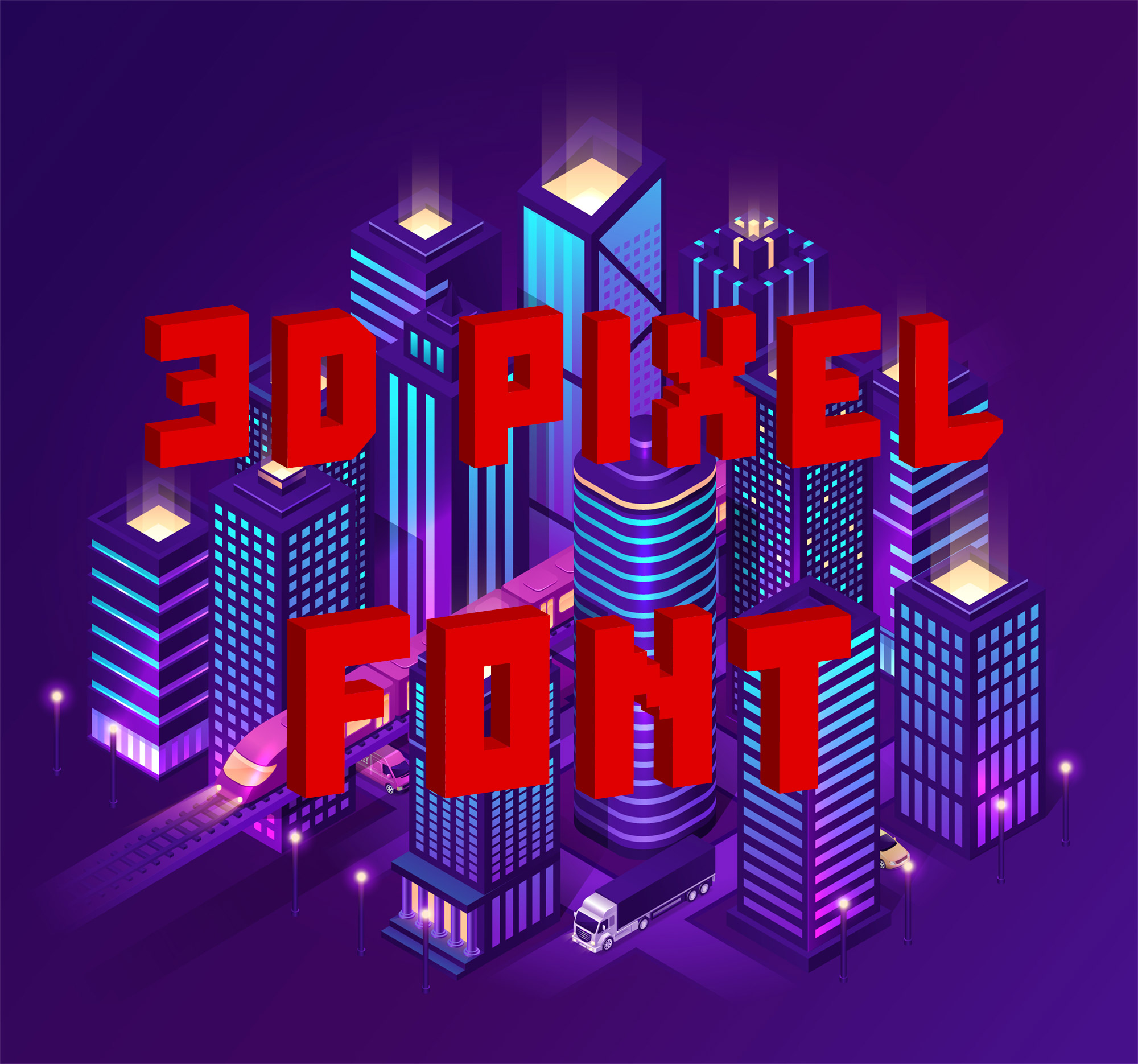
RedPixel 3D Font
RedPixel 3D Font is 3D SVG color pixel font. RedPixel is a blocky futuristic gaming font with a powerful, strong sharp corners and a cut out on the inner will emphasize the spirit of the racer within you.